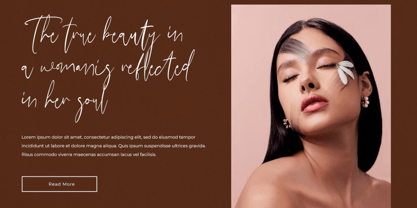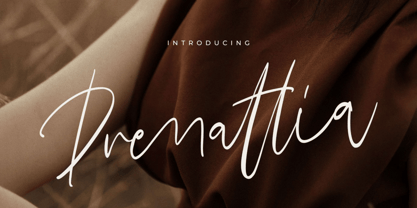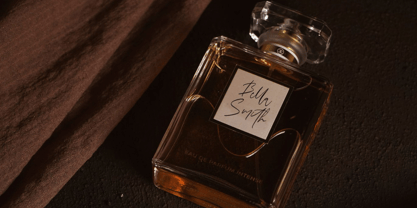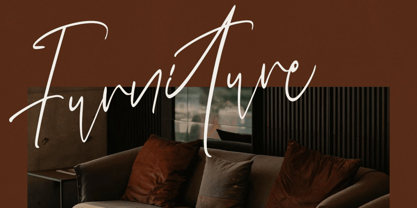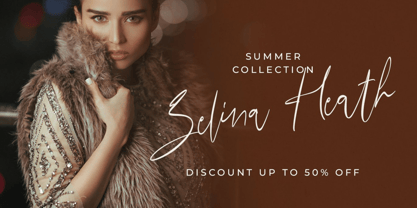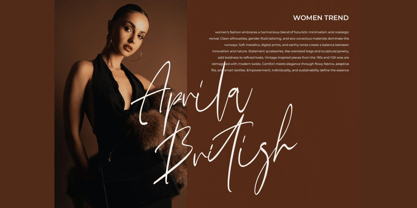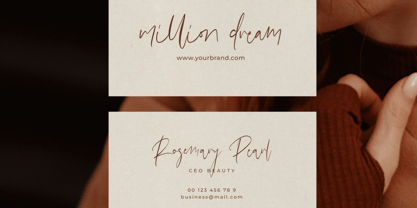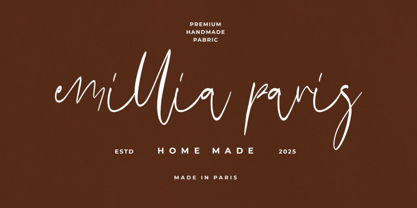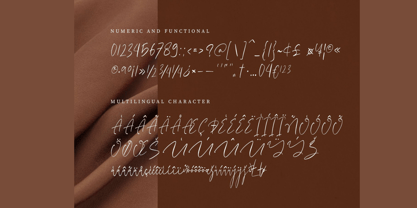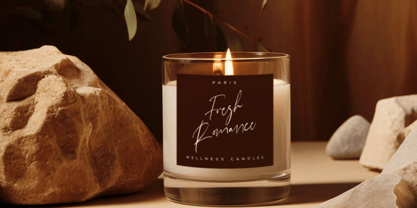
Derrida
by Hasnat Studio
The Derrida Font Family was designed by Hasnat Khan and published by Hasnat Studio. Derrida contains 1 styles. More about this family
Derrida is a graceful and stylish modern script font that brings a handwritten elegance to your creative work. Designed with flowing curves, refined letterforms, and contemporary flair, Derrida adds sophistication and personality to any design it touches.
Perfect for both personal and professional branding, wedding invitations, editorial layouts, social media content, and product packaging, this versatile typeface delivers high-end aesthetics with a handcrafted touch. Complete with alternates, ligatures, and multilingual support, Derrida gives you the creative tools to elevate every project with elegance.
✿ Key Features:
• Modern Script Style: Elegant handwritten look for a personal and professional touch
• Alternate Characters & Ligatures: Add unique variations and stylistic elegance
• Standard Glyphs, Numerals & Punctuation: Complete set for functional typography
• Smooth & Readable: Ideal balance of elegance and legibility in both large and small sizes
✿ Perfect For:
• Luxury Branding & Logo Design
• Wedding Invitations & Event Stationery
• Social Media Quotes & Aesthetic Graphics
• Editorial Design & Stylish Covers
• Product Packaging & Boutique Labels
• Photography Watermarks & Business Cards
• Blog Headers & Personalized Projects
Add a touch of handwritten beauty to your work with Derrida—a modern script font designed to inspire and impress.